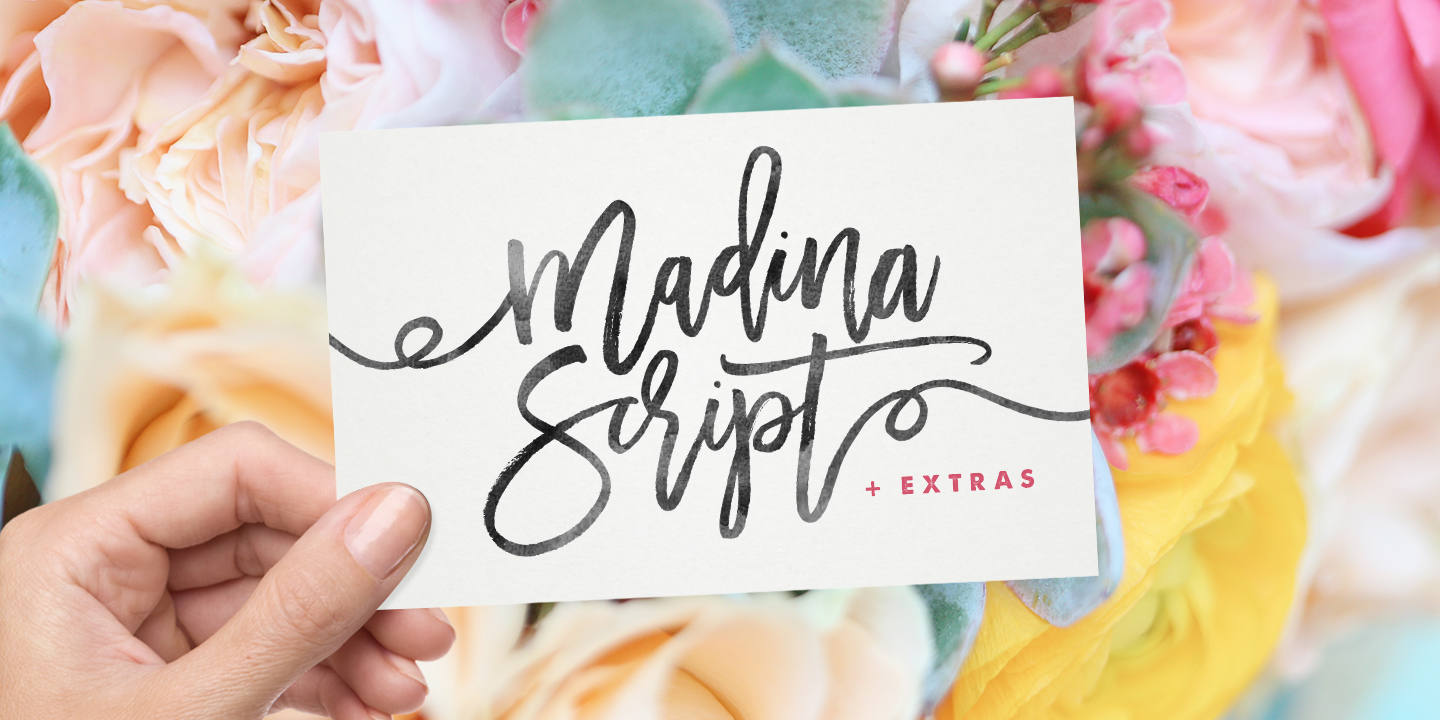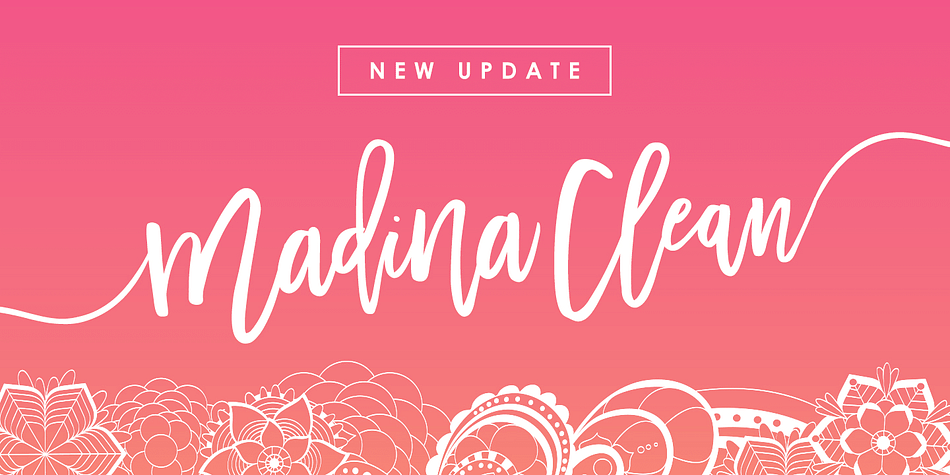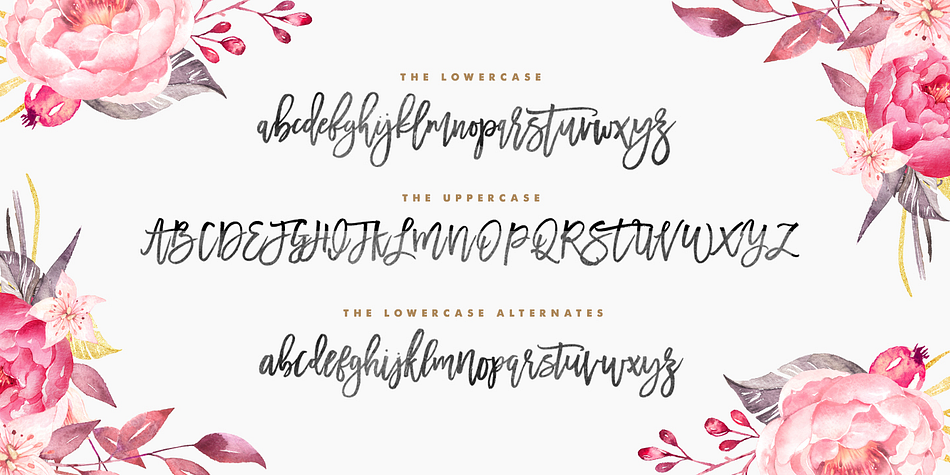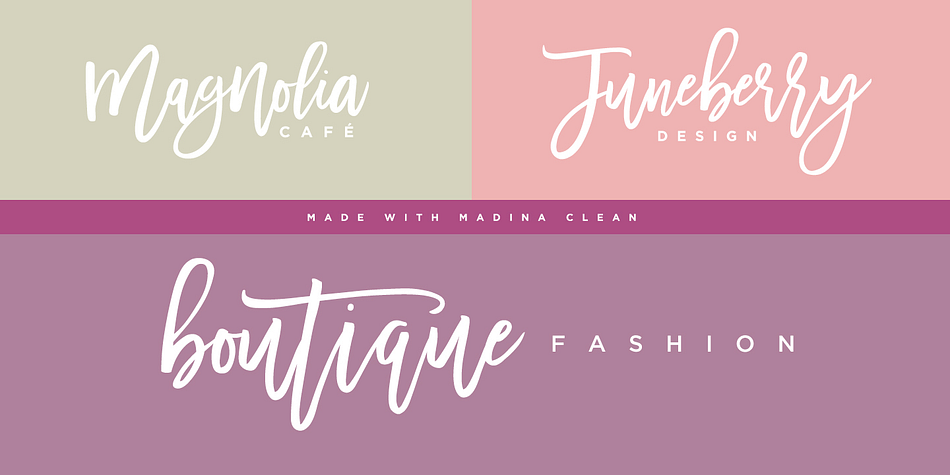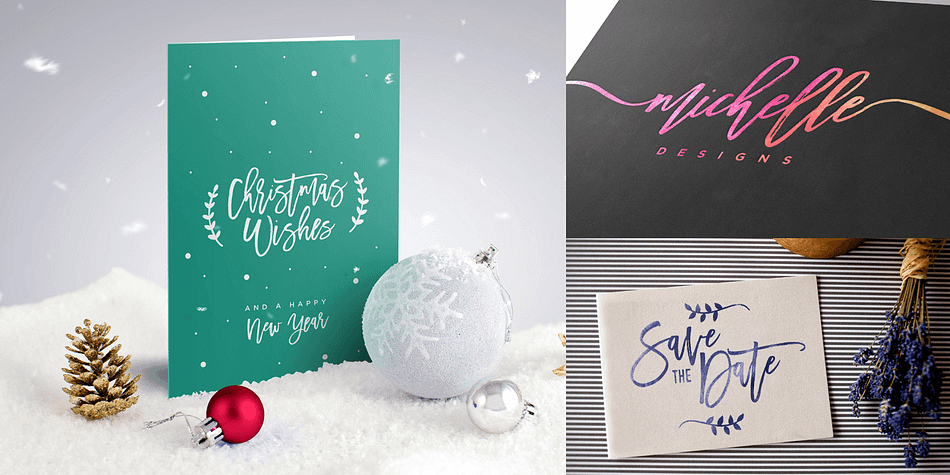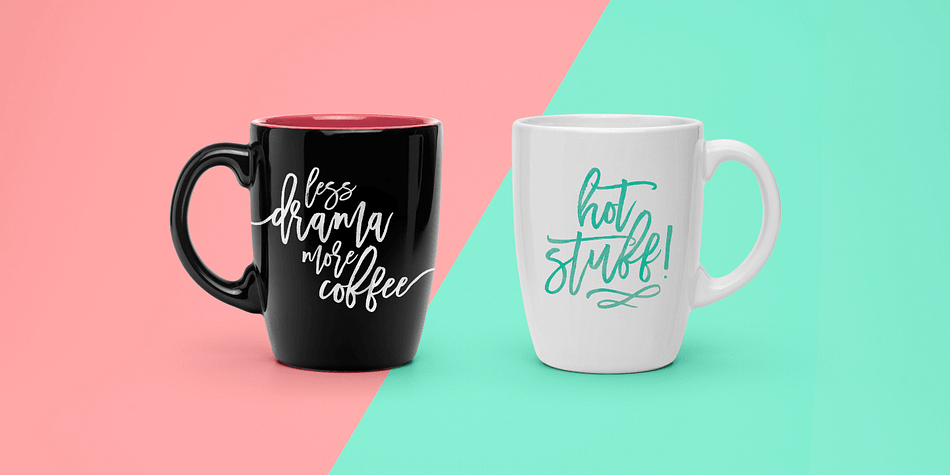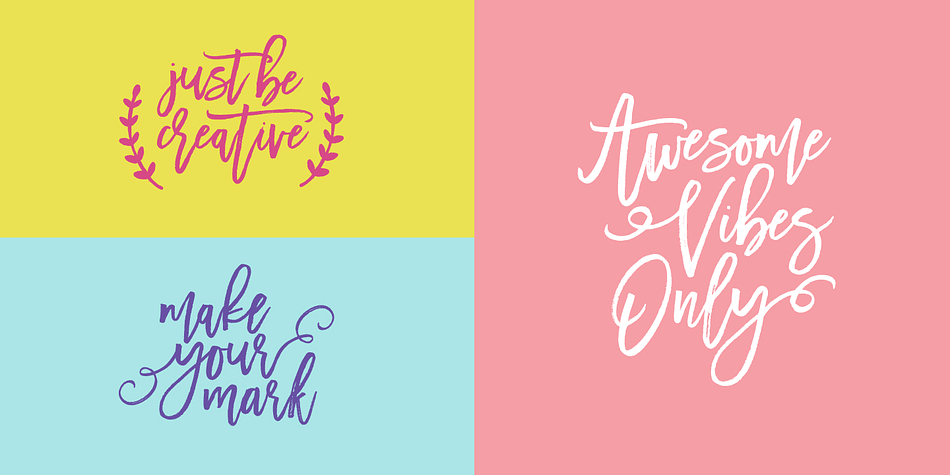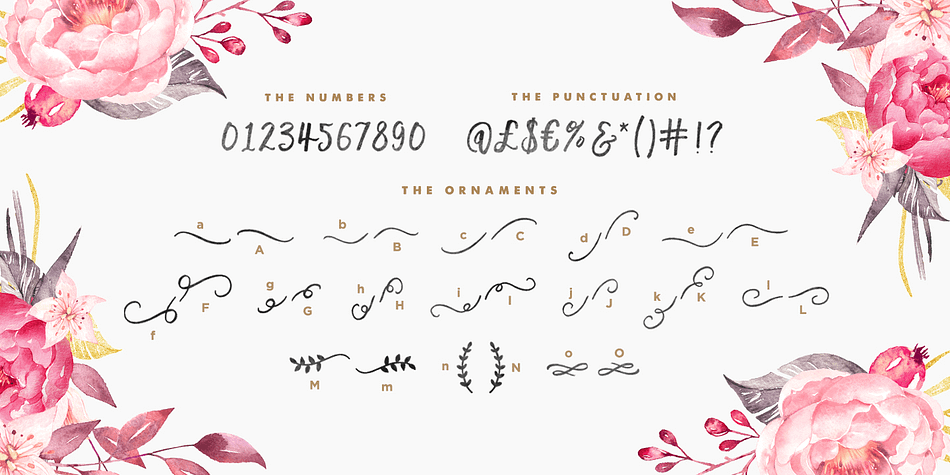
Designed by Sam Parrett, Madina Script is a brush script, modern calligraphy and dingbat font family. This typeface has four styles and was published by Set Sail Studios.
What’s really awesome is that Madina Script includes a complete set of lowercase alternates, which allows you to create even more authentic custom-feel text. Another great feature is the additional Madina ornaments font, which allows you to add some really unique and elegant finishing touches to your script text.
★ New Update • Madina Clean! Madina Script has now been updated to include 2 styles; a rough, textured brush version, and a totally clean & smooth version. This gives you the option to completely switch the style of your font at the click of a mouse, whether you’re looking for a more rustic, hand-made style, or a silky smooth finish.
Styles | Brush Script, Modern Calligraphy, Dingbat |
Designer | Sam Parrett |